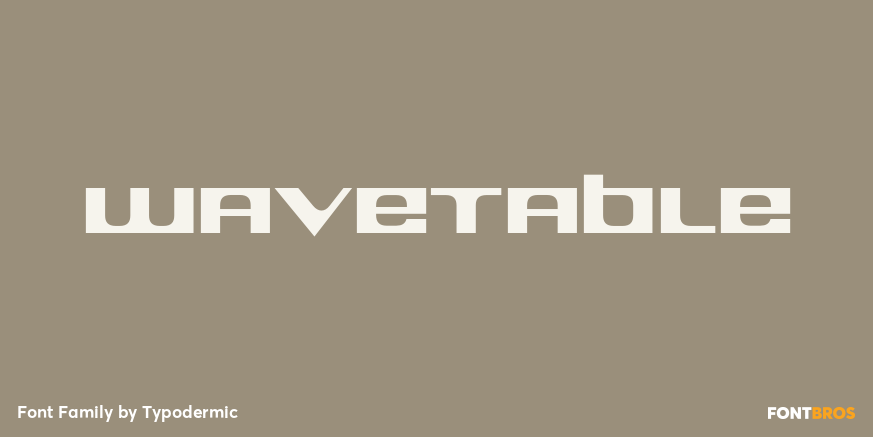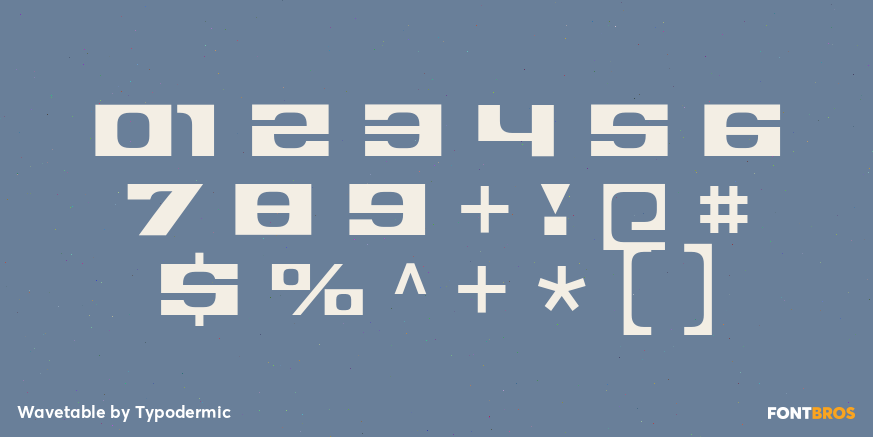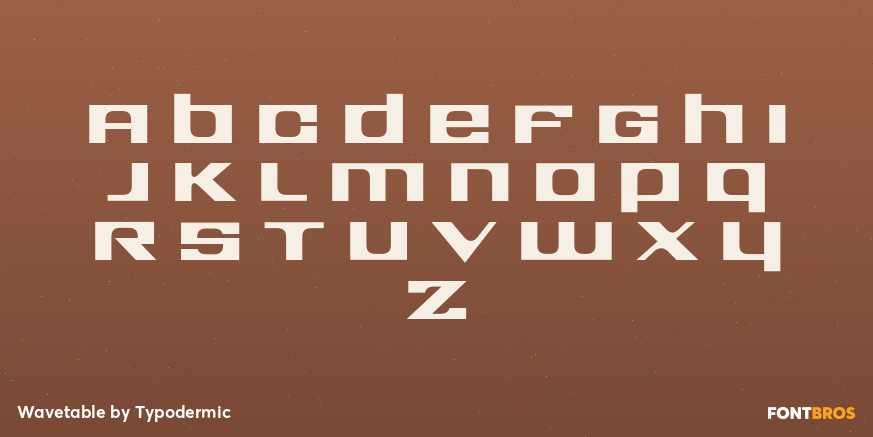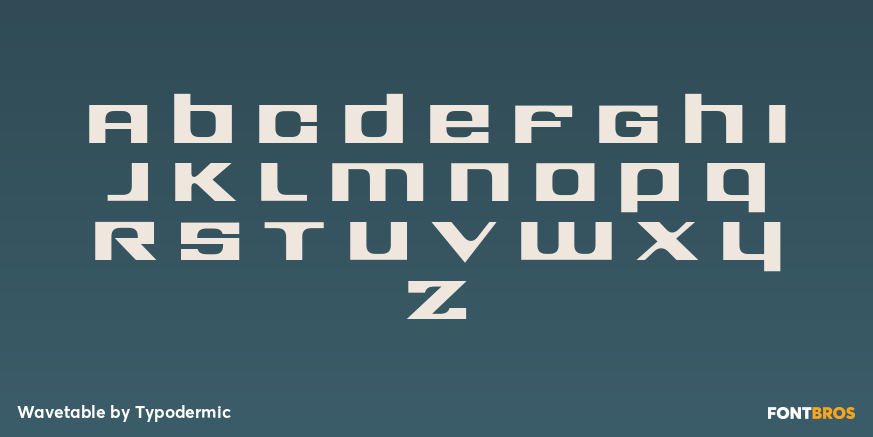
Wavetable
Font Family by Typodermic
Wavetable: the typeface that cuts through visual noise like a perfectly tuned square wave. Just as square waves defined the sound of early synthesizers with their bold, uncompromising tones, this font redefines typography with its sharp, rectangular forms.
Each character in Wavetable is a visual pulse—precise, powerful, and unapologetically digital. It’s typography at its most fundamental and impactful, stripped of unnecessary curves and flourishes. But Wavetable isn’t a one-trick oscillator. Like pulse-width modulation breathes life into square waves, this typeface offers remarkable versatility. Its OpenType features—fractions, primes, and a full set of currency symbols—allow you to modulate your designs with precision.
This boxy typeface resonates across linguistic boundaries. It speaks fluently in most Latin-based European languages, Vietnamese, Greek, and a broad spectrum of Cyrillic-based writing systems. From the blocky aesthetics of Berlin techno flyers to the pixelated charm of retro gaming interfaces in Cyrillic, Wavetable maintains its distinctive voice.
Why settle for smooth sine waves when you can grab attention with the strong presence of Wavetable? Let Wavetable be the square core of your typographic signal chain, and watch as it transforms your projects into visual soundscapes that demand to be seen and heard. Tune in, square up, and let Wavetable modulate your designs to their highest amplitude.